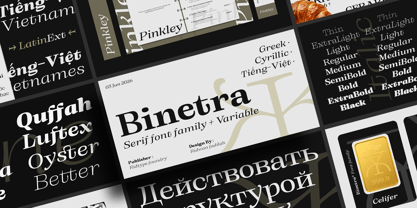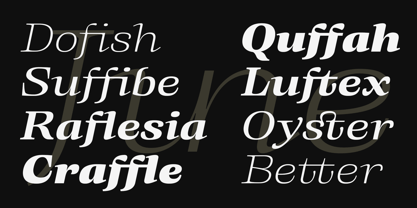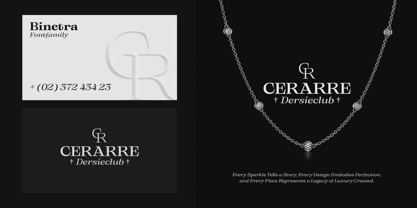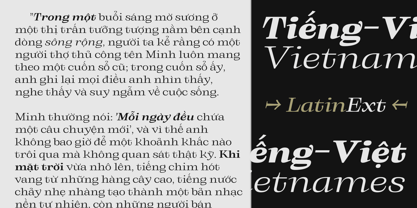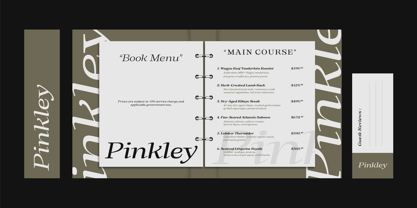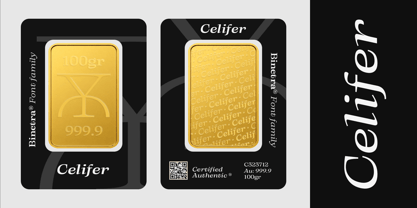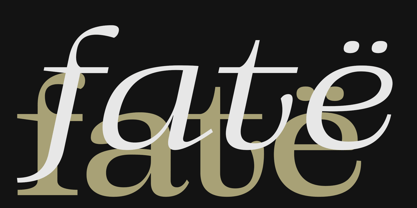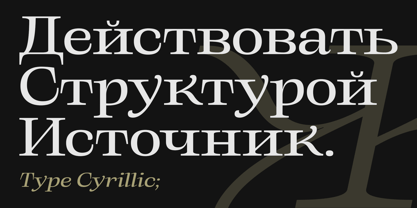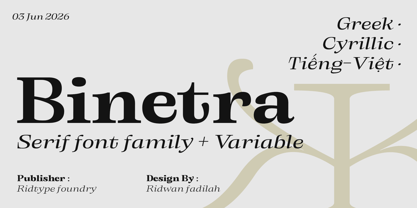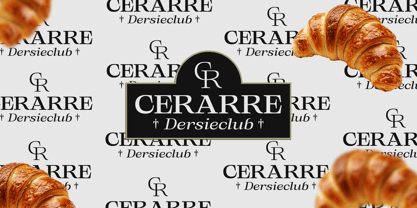
Binetra
by Ridtype
The Binetra Font Family was designed by Ridwan Fadilah and published by Ridtype. Binetra contains 20 styles and family package options. More about this family
Binetra font family embodies the timeless elegance of classical serif typography reinterpreted for contemporary visual culture. Designed with meticulous attention to proportion, contrast, and rhythm, it offers a sophisticated typographic voice that feels both authoritative and refined.
Whether featured in luxury branding, editorial design, corporate communications, or premium packaging, Binetra delivers exceptional readability and a distinguished visual presence. The result is a versatile typeface family capable of elevating brands with a sense of prestige, confidence, and enduring sophistication.